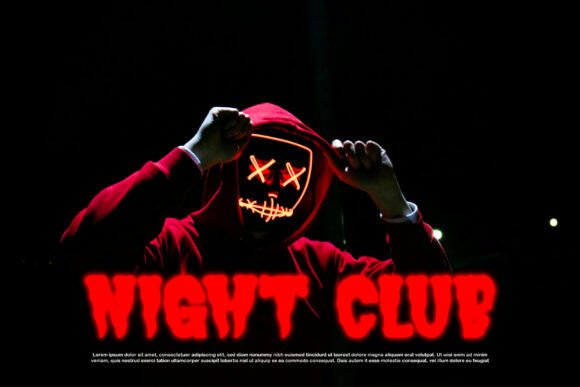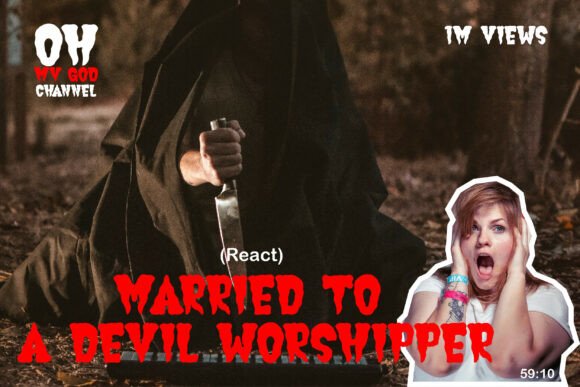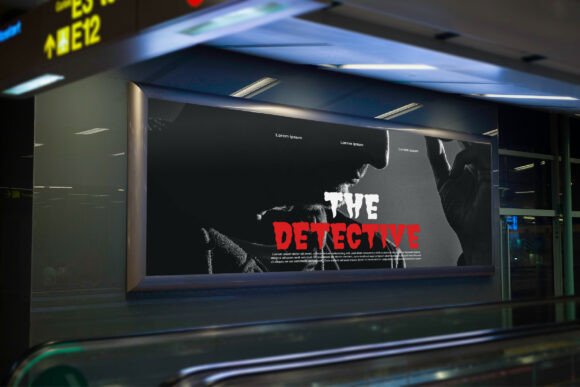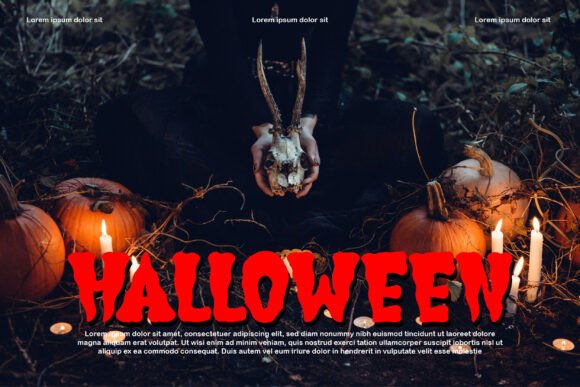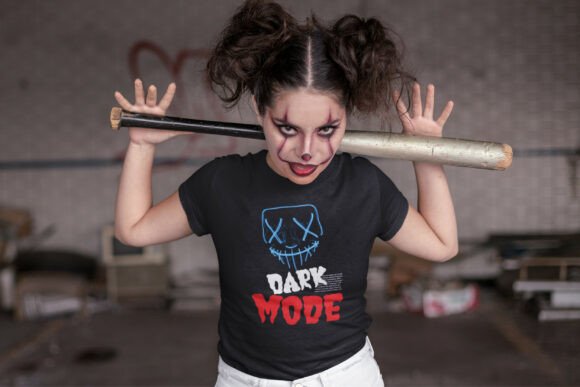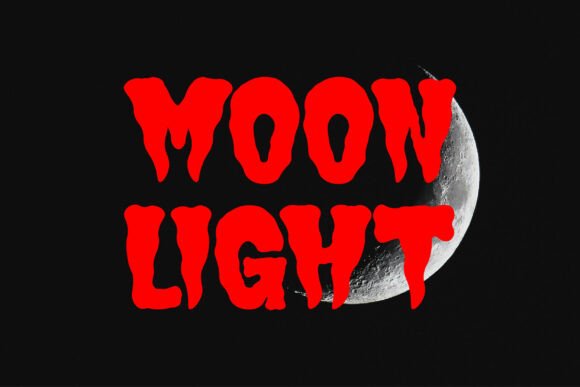
Introduction to Horror Street Font
Have you ever found yourself rummaging through your design archives, desperate for that one special font that will elevate your creative project from ordinary to extraordinary? I know I have. And then, like a ghostly whisper in the night, it appears – the perfect font to cast a spell on your audience. For me, that font is Horror Street Font, a hauntingly beautiful display font that’s perfect for conjuring up the eerie atmosphere of Halloween.
As a designer, I can attest to the value of having a versatile and high-quality design resource like Horror Street Font in your toolkit. With its transparent background and Gothic-inspired aesthetic, this font is perfect for creating stunning book covers, titles, album covers, unique logos, and cool apparel that will leave a lasting impression. And the best part? You can download it for free, making it an invaluable addition to any designer’s arsenal.
Key Features of Horror Street Font
- High-quality font with a unique, horror-themed design, ideal for creative projects that require a dark and eerie atmosphere.
- Unique characteristics include bold, gothic-inspired lettering and intricate details, making it perfect for horror-themed designs, dark fantasy projects, and other creative endeavors.
Honest Review: Horror Street Font
I recently had the opportunity to use the Horror Street Font in a creative project, and I must say it’s been a game-changer. This font is a fantastic design resource for anyone looking to add a touch of eeriness to their work.
- ✨ High-quality design: The font is well-crafted and has a professional look to it.
- ✨ Versatile: It can be used for a variety of projects, from horror-themed designs to even more subtle applications.
- ⚠️ Limited customization options: While the font is high-quality, it’s not as customizable as some other fonts I’ve worked with.
- ⚠️ Not suitable for transparent background: I found that the font doesn’t work well with transparent backgrounds, which can be a bit of a limitation.
Overall, I’m impressed with the Horror Street Font. It’s a solid design resource that can add a lot of character to a project. Just be aware of its limitations, and you’ll be all set to create some spooky (or not-so-spooky) designs.
The Horror Street Font is perfect for creating spooky and eerie designs, making it a popular choice for horror movie posters, haunted house decorations, and other Halloween-themed projects. It’s also a great choice for creating a mysterious and suspenseful atmosphere in designs for thrillers and suspenseful novels.